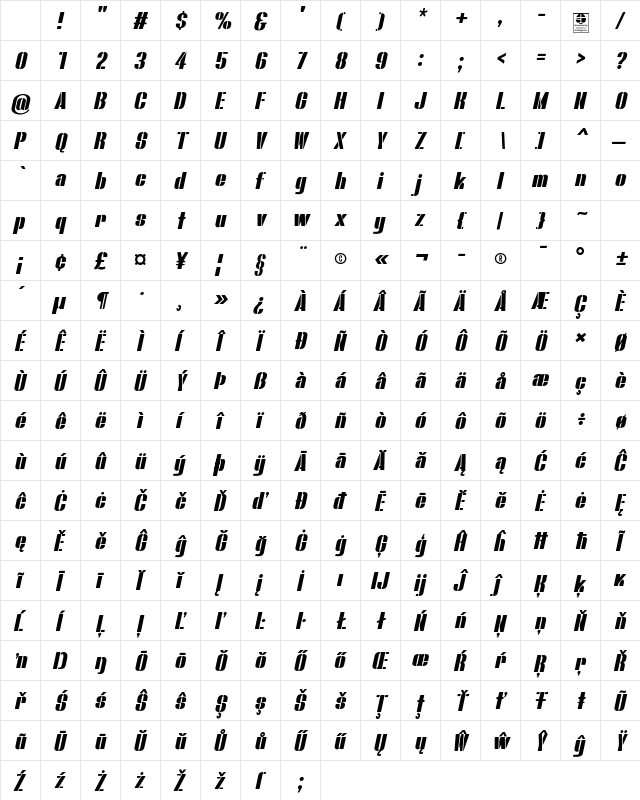
Complete Bluefish STENCIL DEMO Italic glyph index. Displaying only characters natively supported by Bluefish STENCIL DEMO Italic font.
Bluefish STENCIL DEMO borrows the utilitarian aesthetic of stencil lettering, with its characteristic cutaways and no-frills construction lending an industrial edge. The slanted form adds forward momentum and visual energy.
Pro Tip: Use Bluefish STENCIL DEMO at large sizes on packaging, posters, or apparel where the stencil cutaways read clearly. Avoid small sizes where those gaps become visual noise.